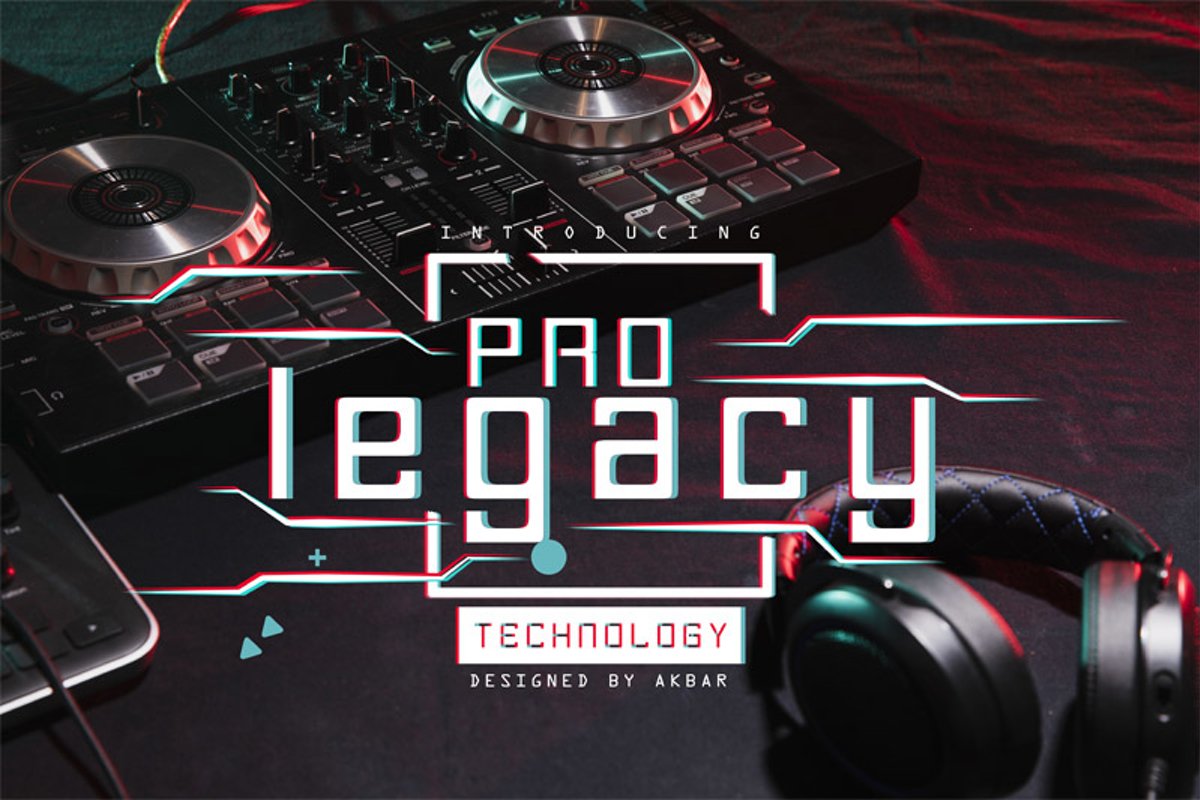
Created By Akhbar Design
Pro-Legacy
Pro-Legacy is an electric display typeface inspired by modern technology. It will turn any design idea into a true standout!